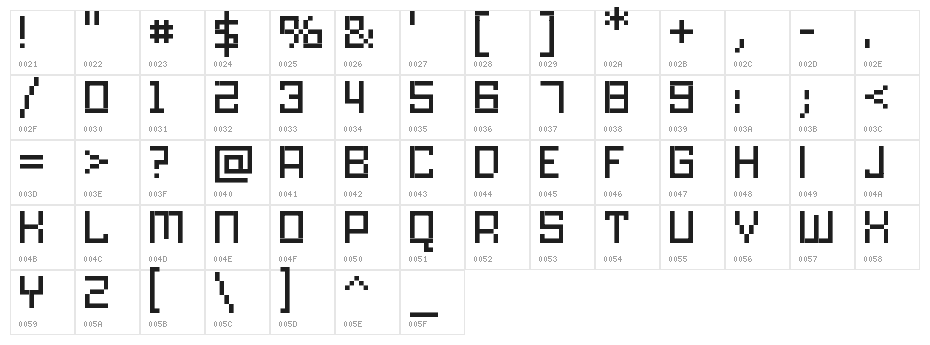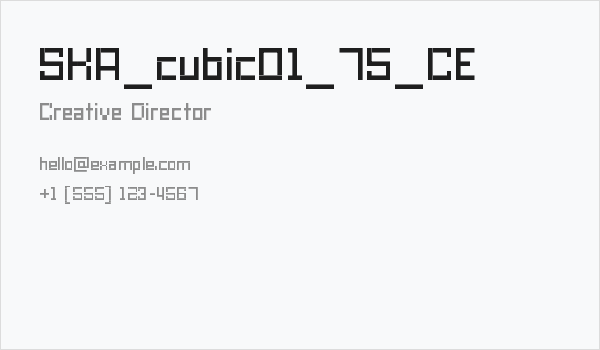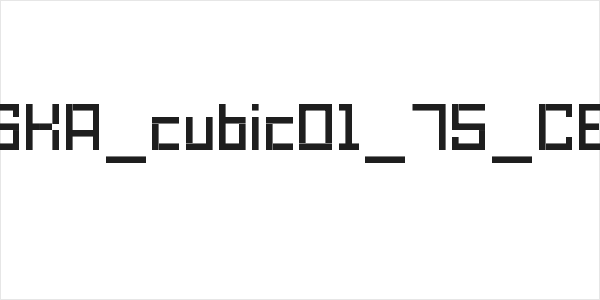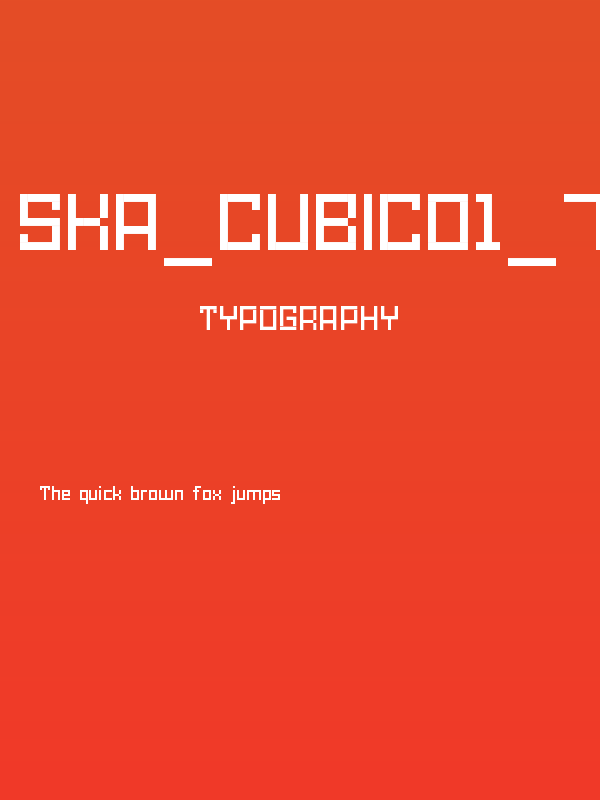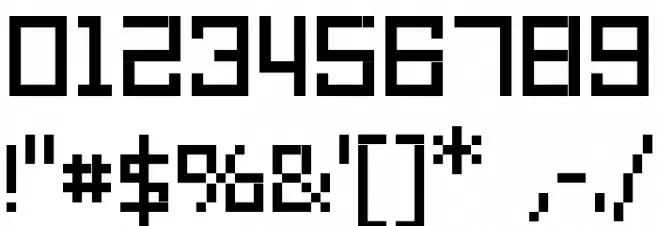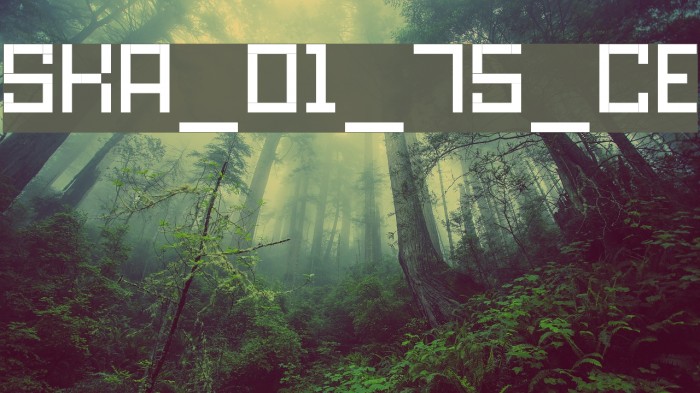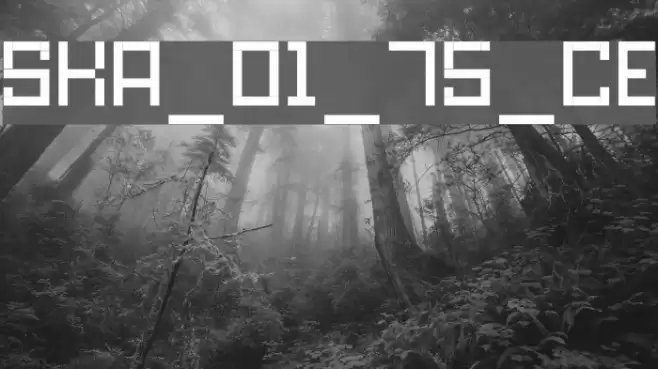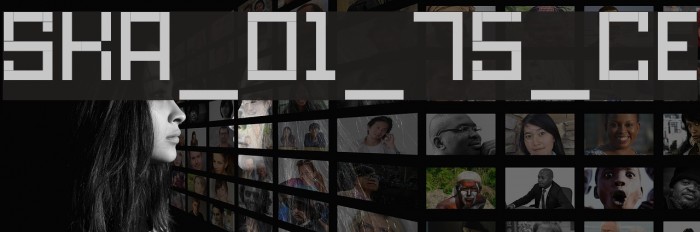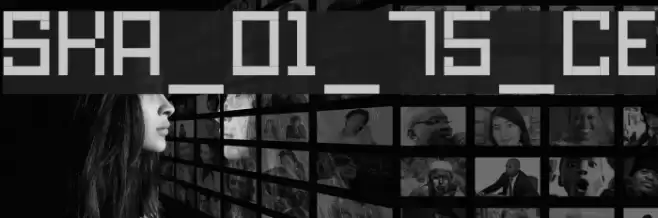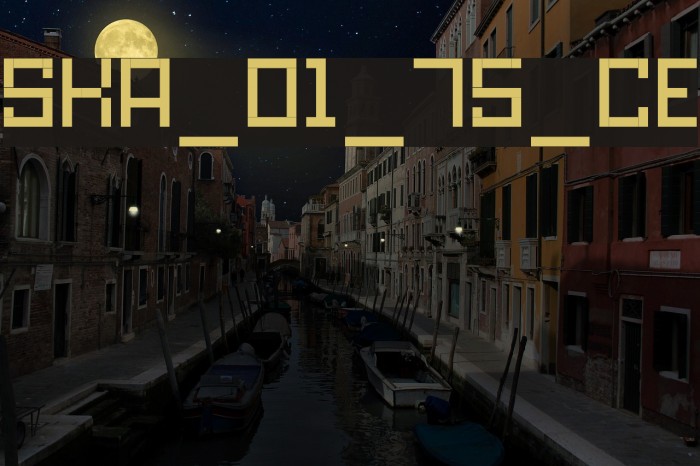
SKA_cubic01_75_CE Font
SKA_cubic01_75_CE Description
This font features a geometric and modular design, characterized by its cubic and block-like appearance. Each character is constructed with straight lines and right angles, giving it a distinctly digital and modern feel. The uniformity in stroke width across all characters contributes to a cohesive and structured look. The font's simplicity and clarity make it highly legible, even at smaller sizes. Its design is reminiscent of early computer and video game typography, making it ideal for projects that aim to evoke a sense of nostalgia or a retro-futuristic aesthetic.
| Proposed Projects | Ideal for video game design, tech branding, digital art, and retro-themed posters. |